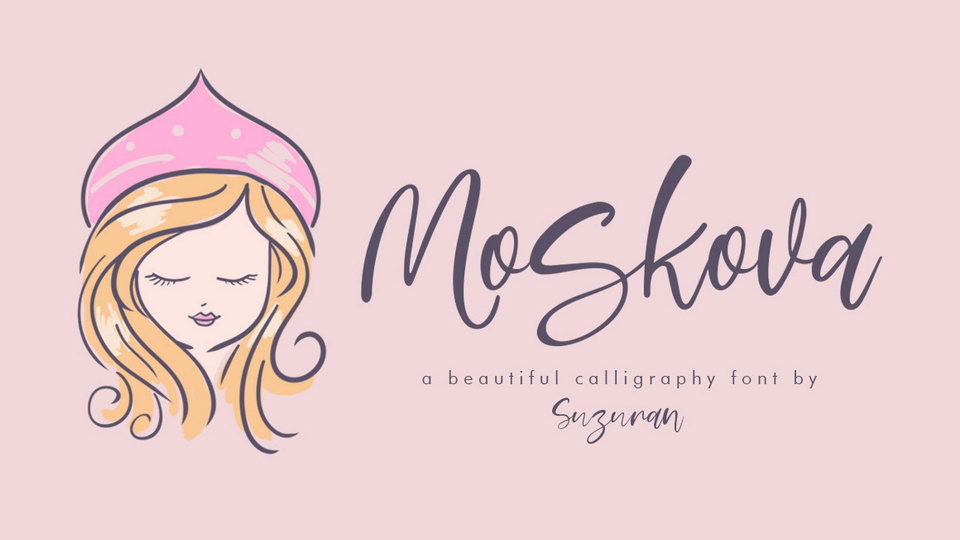
Download Moskova font, a lovely handwritten script with a free and fancy flow. Perfectly suited to logo, stationery, poster, apparel, branding, wedding invitation, card, tagline, layout design, and much more !!.
Designer: Suzuran Type